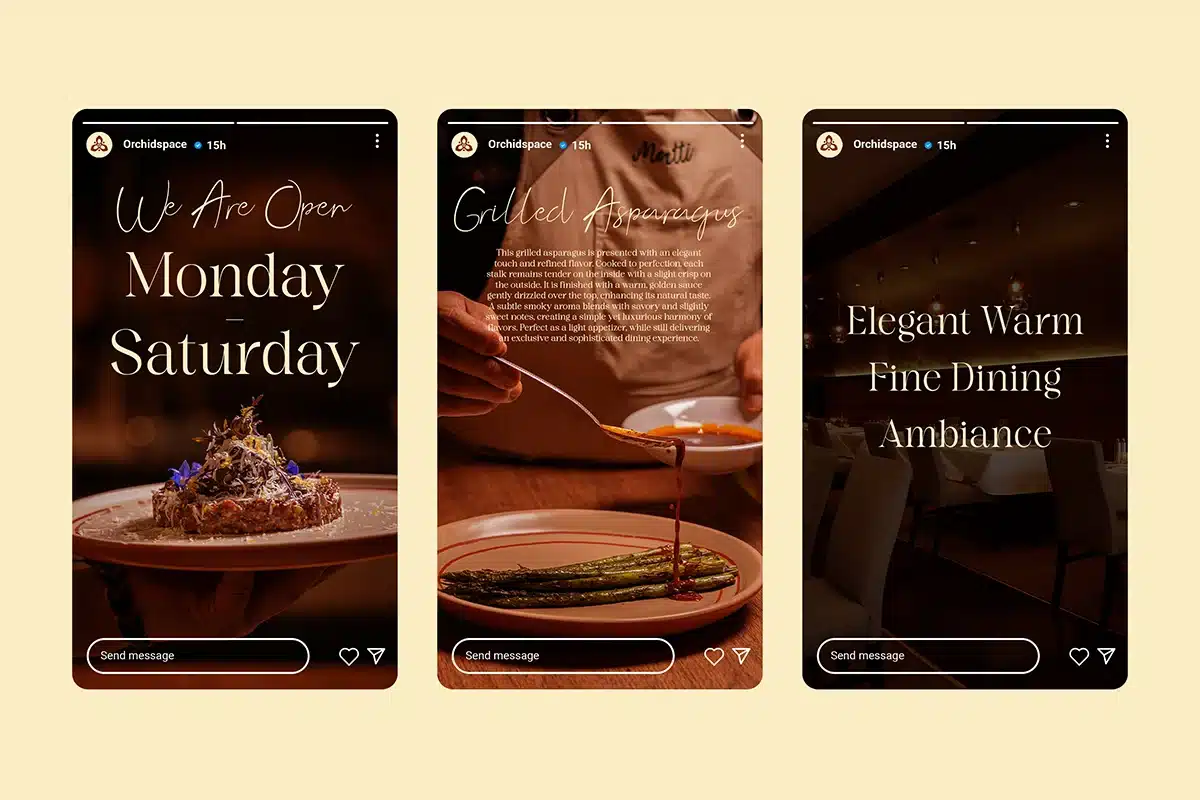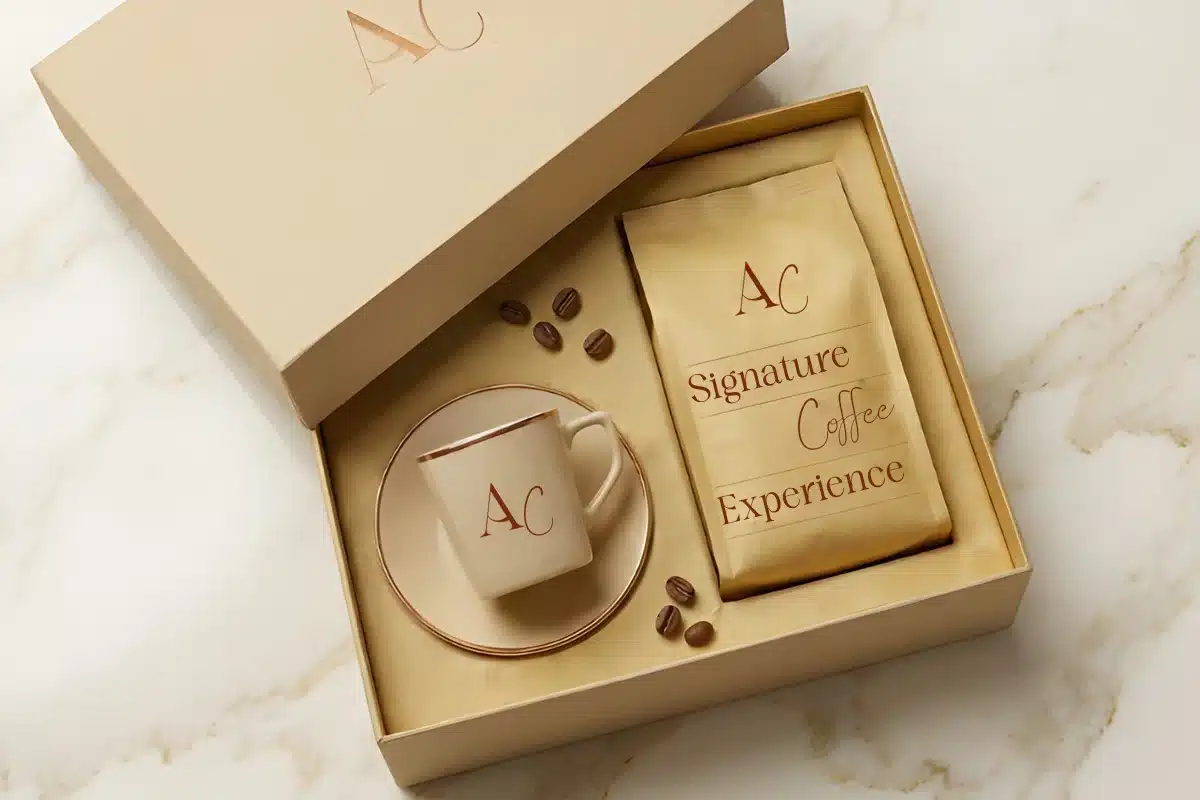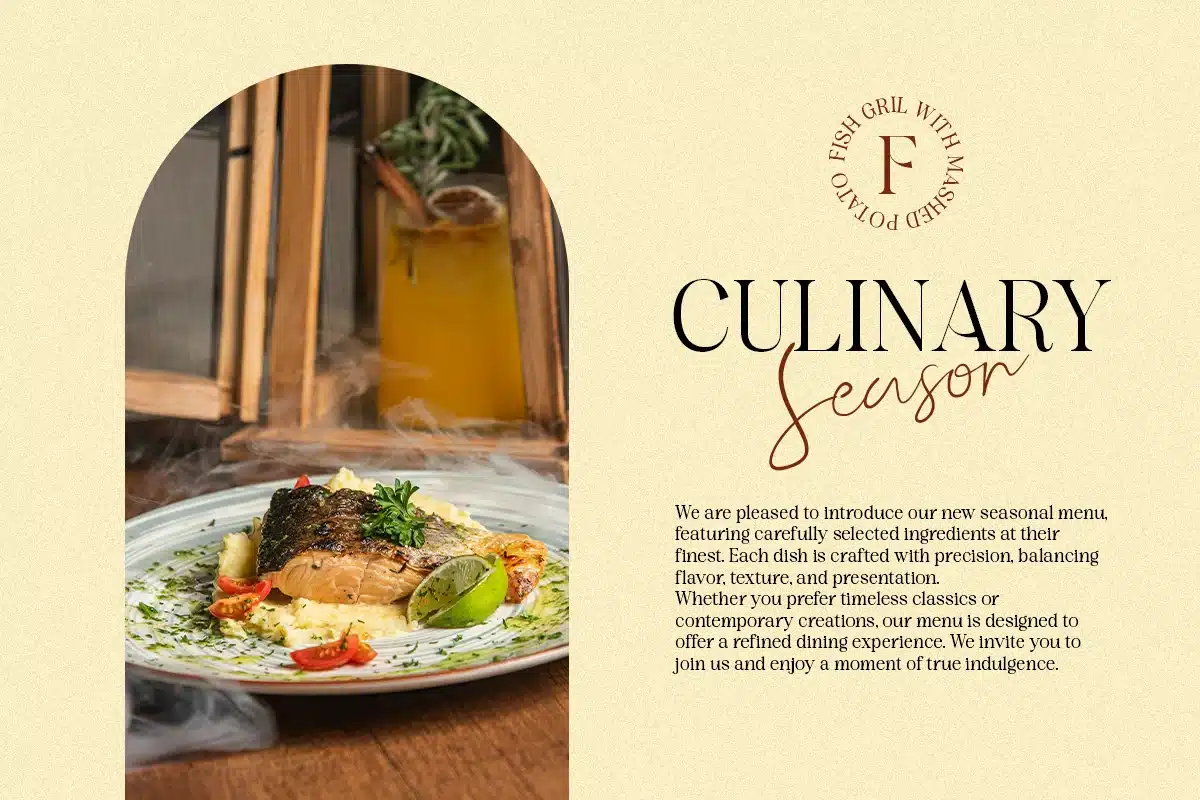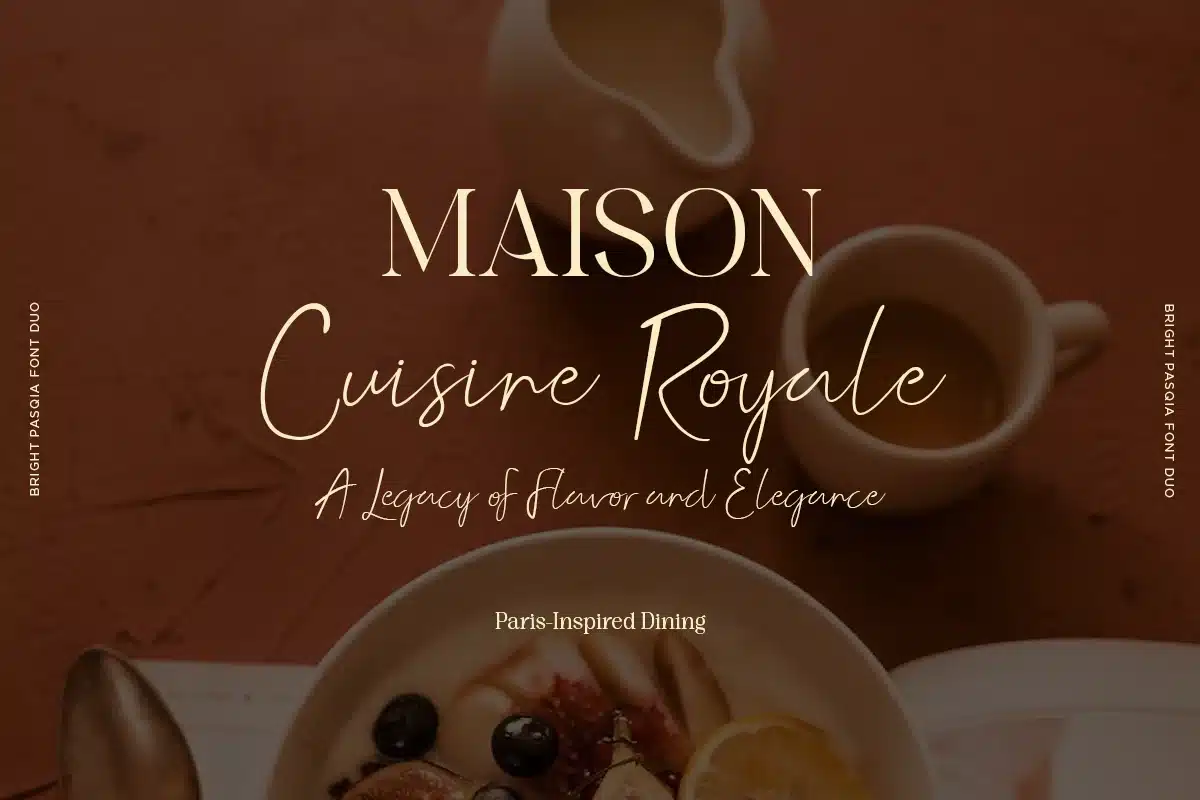
Duo Font Combination – Bright Pasqia
Bright Pasqia – Elegant Serif & Handwritten Script Font Duo
Bright Pasqia is a luxurious font duo that combines an elegant serif font with a natural handwritten script, designed to create a perfect balance between sophistication and personal charm. This font pairing delivers a modern yet timeless aesthetic, making it ideal for premium branding and stylish design projects.
The serif typeface features refined curves and high-contrast strokes, giving a classic and professional look, while the handwritten script adds a soft, flowing, and expressive feel. Together, they create a harmonious combination that enhances visual appeal and readability.
Perfect for a wide range of creative needs, Bright Pasqia works beautifully for logos, wedding invitations, branding, fashion editorials, beauty and skincare packaging, social media content, website headers, and luxury product designs.
This font duo is crafted to elevate your design with a classy, feminine, and high-end style—making your brand stand out with elegance and authenticity.